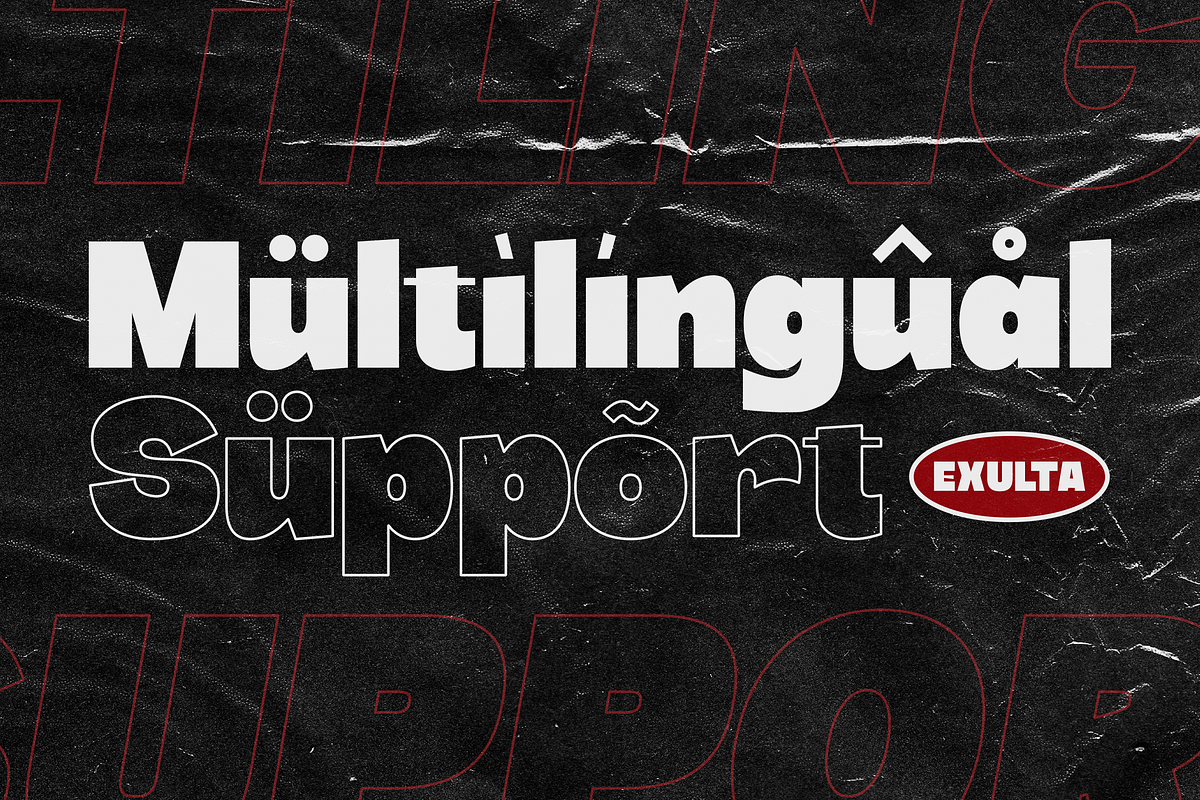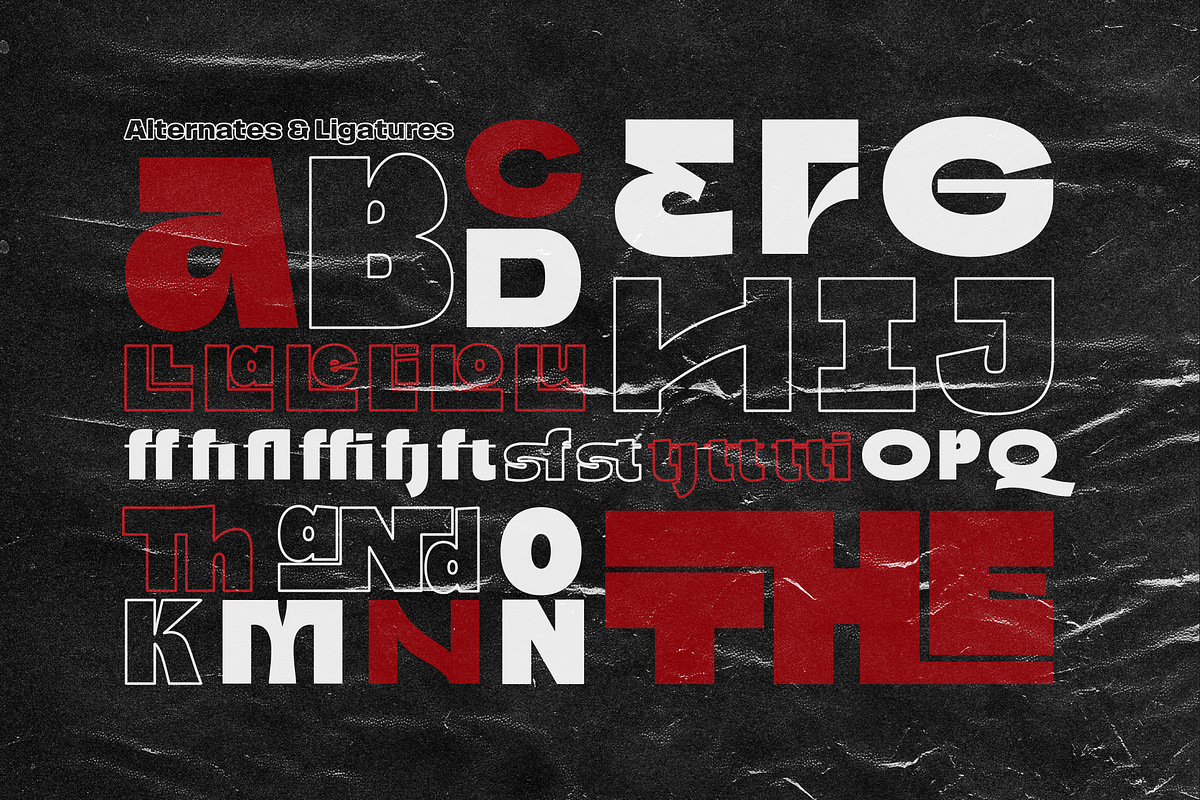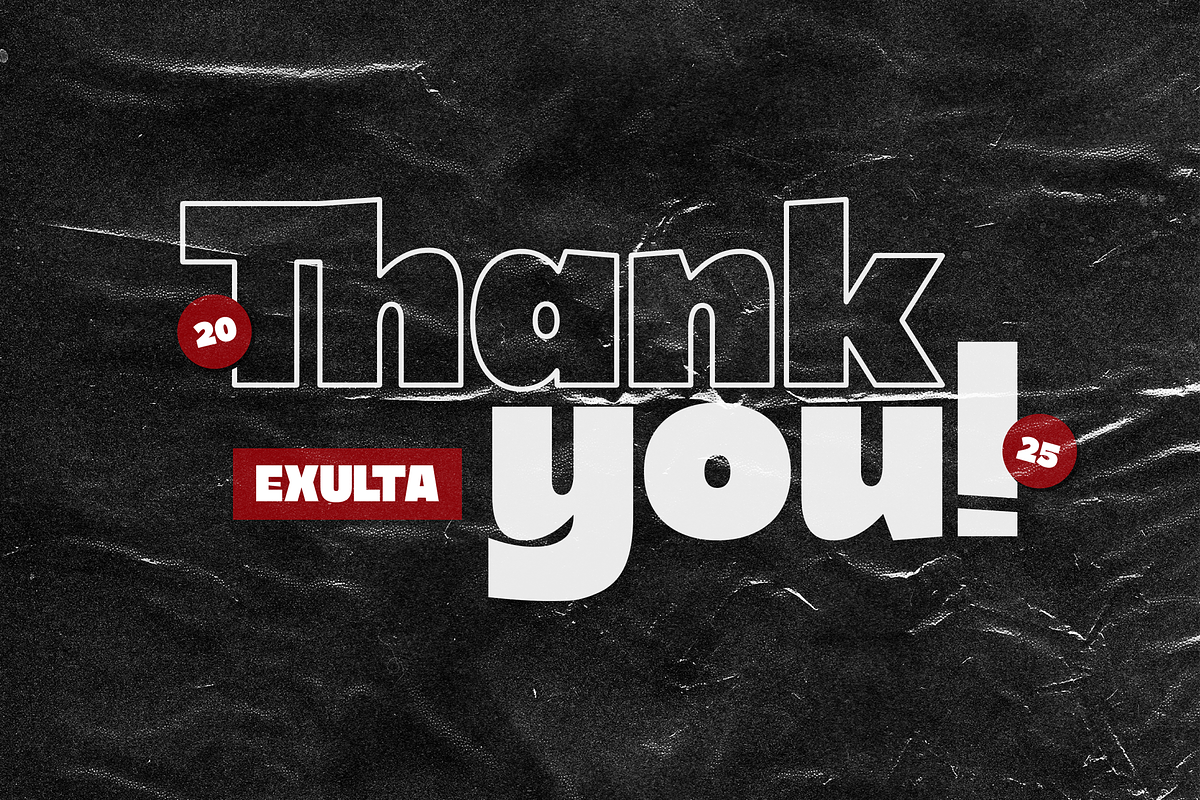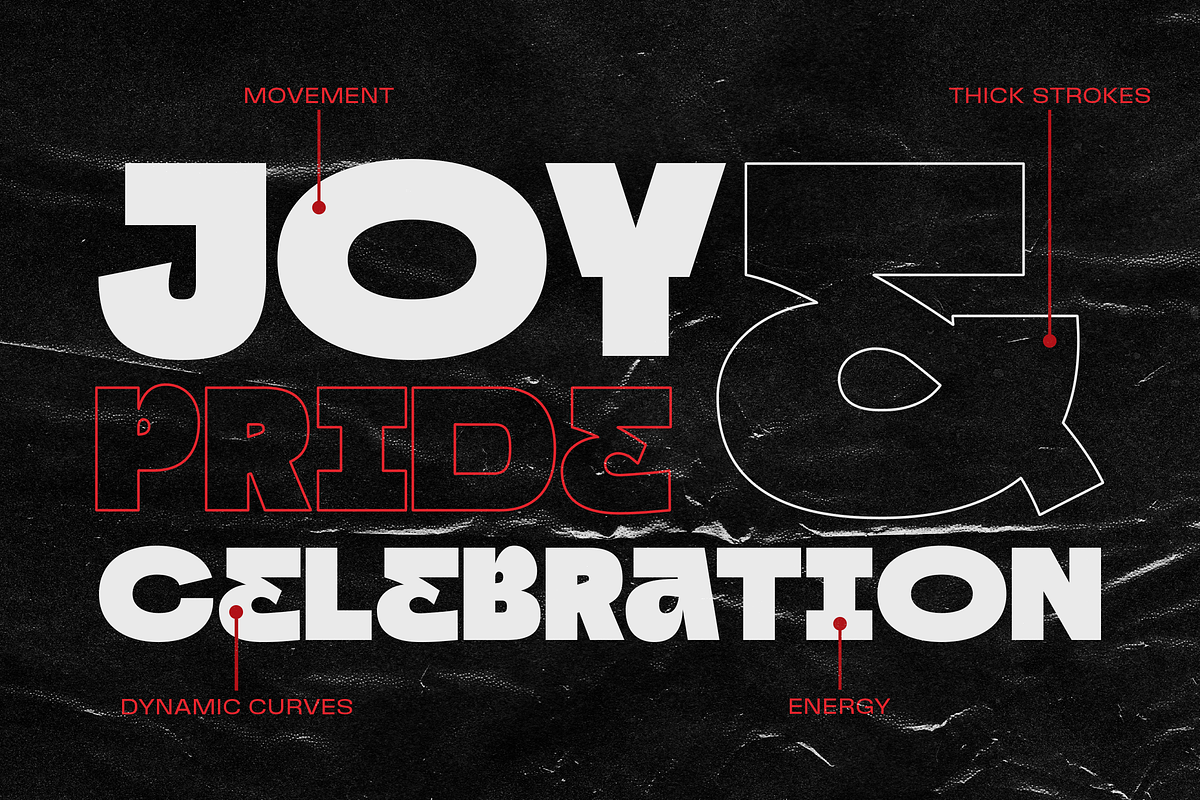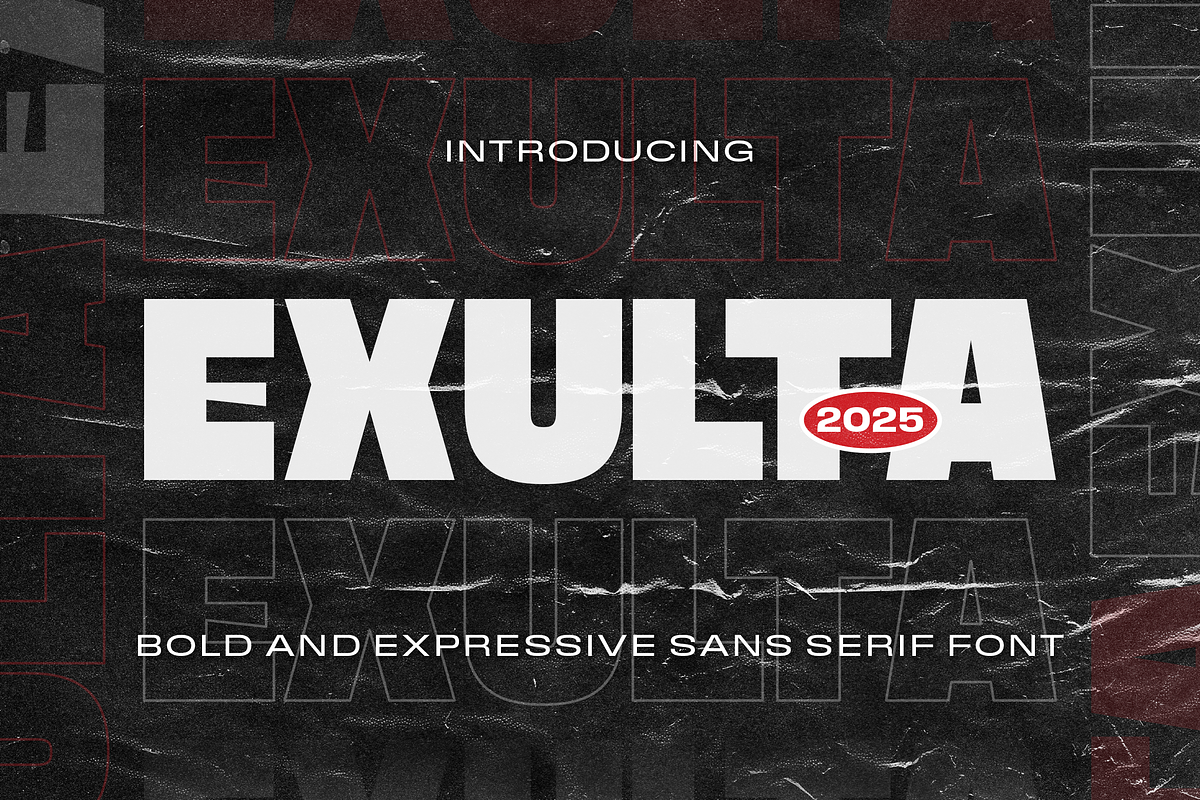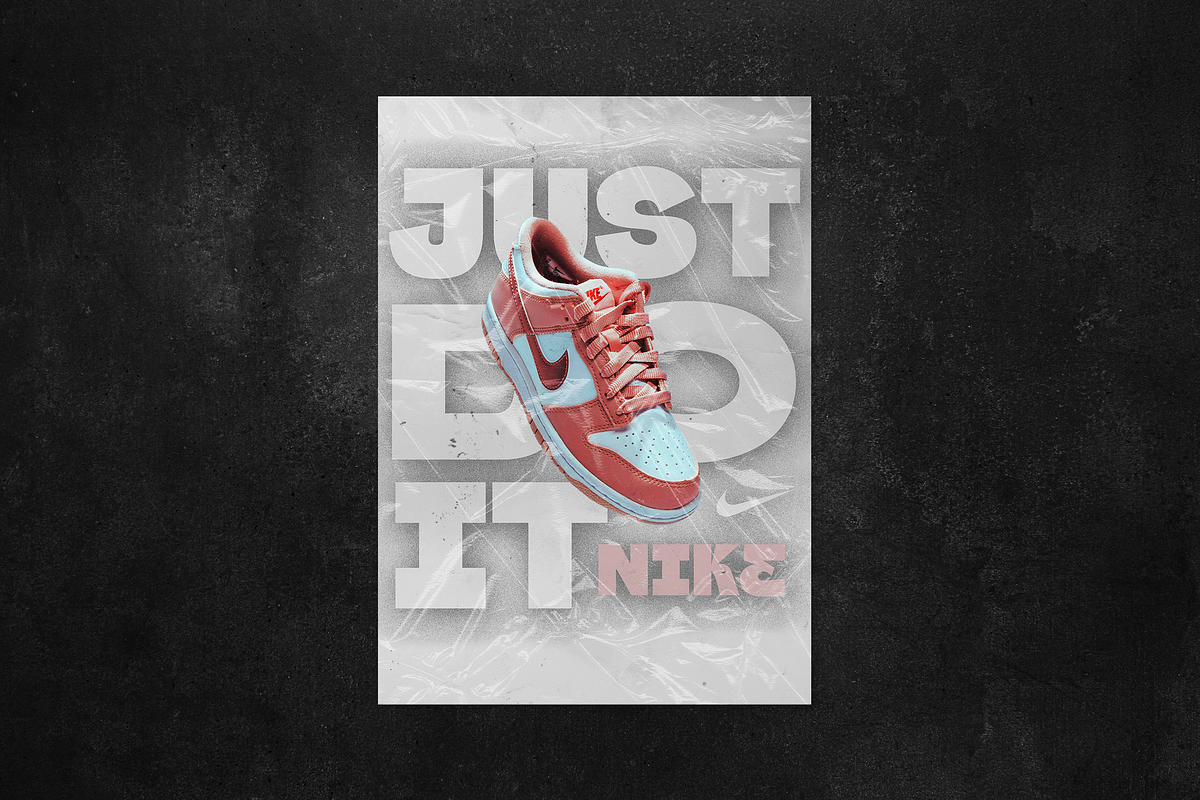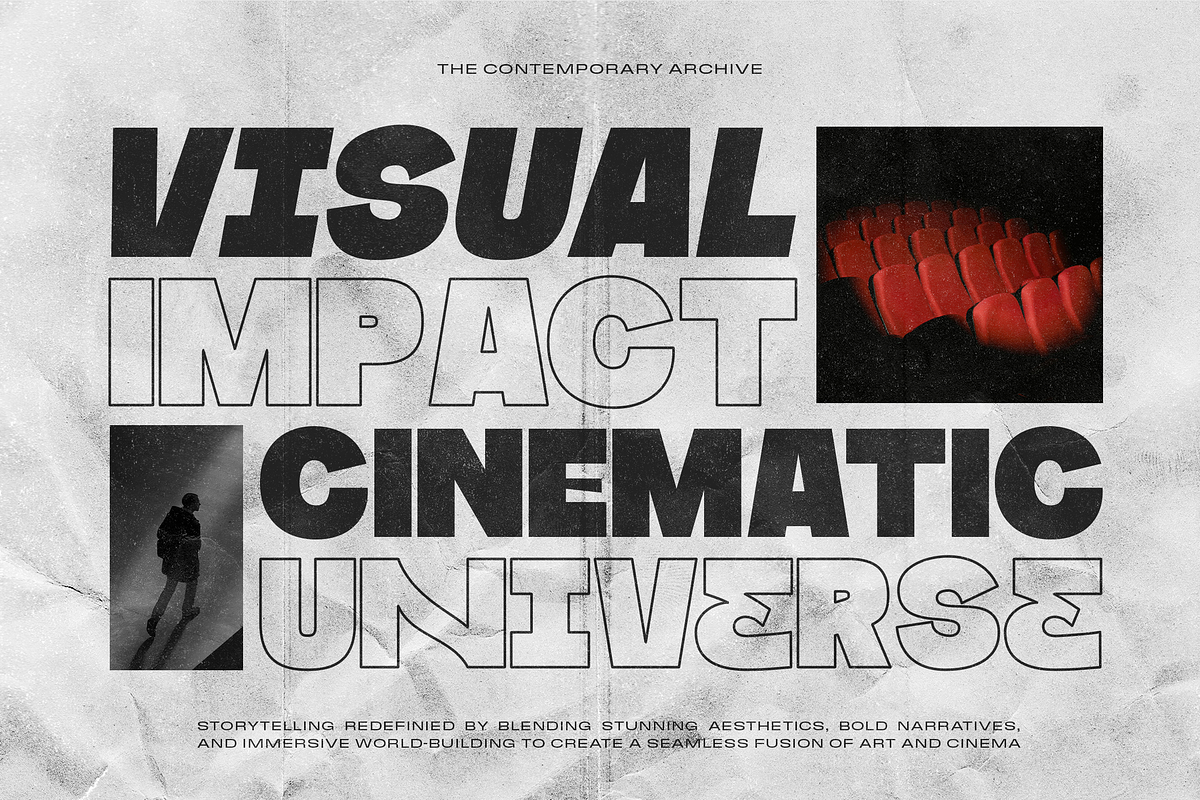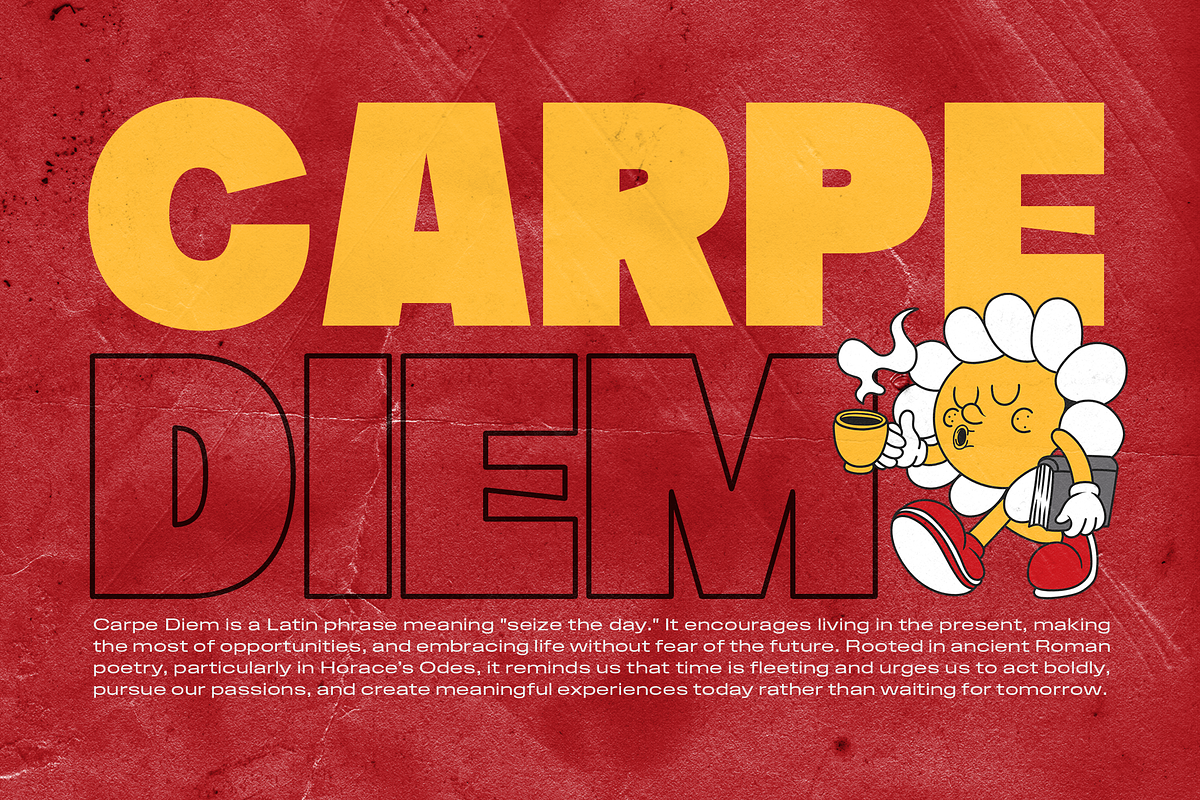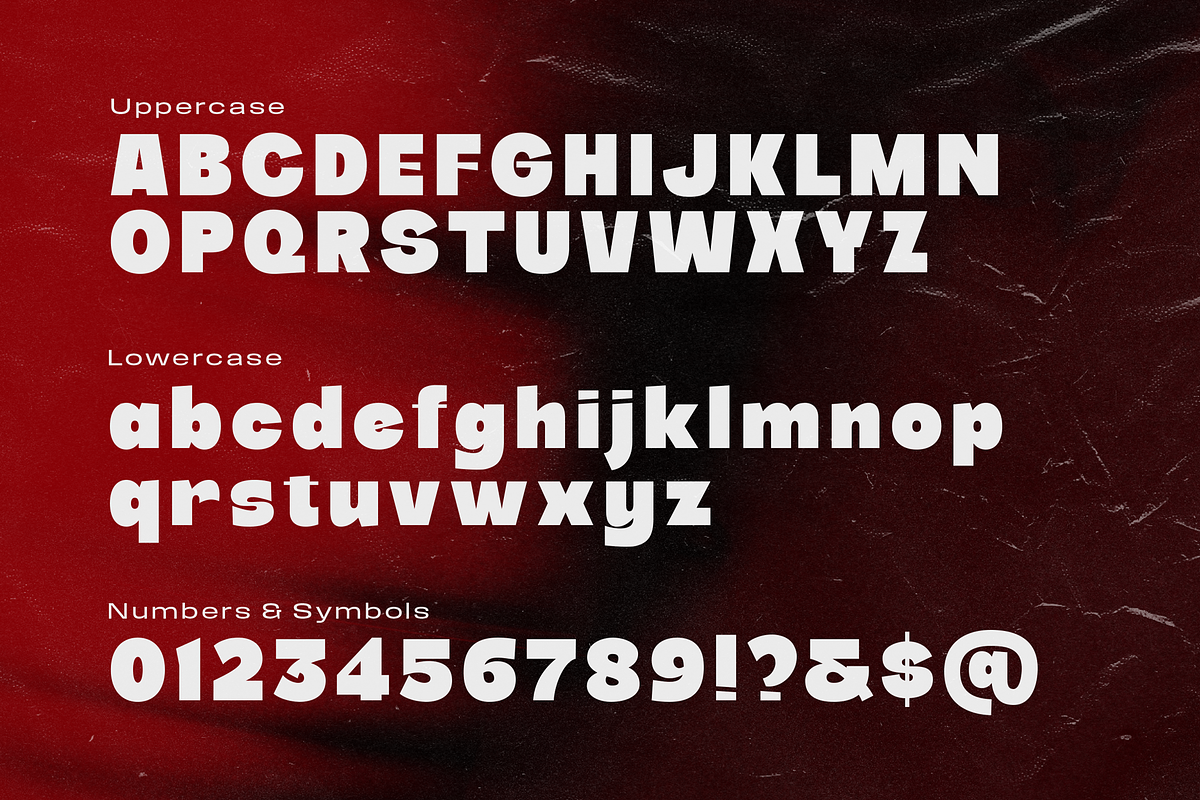
Exulta – A Bold and Expressive Sans
Introducing Exulta – A Bold and Expressive Sans Serif Font
Designed to make a statement, Exulta is a powerful, modern font that stands out in any project. Perfect for websites, social media branding, eye-catching posters, bold advertisements, and more!
Capture your audience’s attention with this striking, expressive sans serif font that delivers style and impact.
- Multilingual & Ligature Support
- Full sets of Punctuation and Numerals